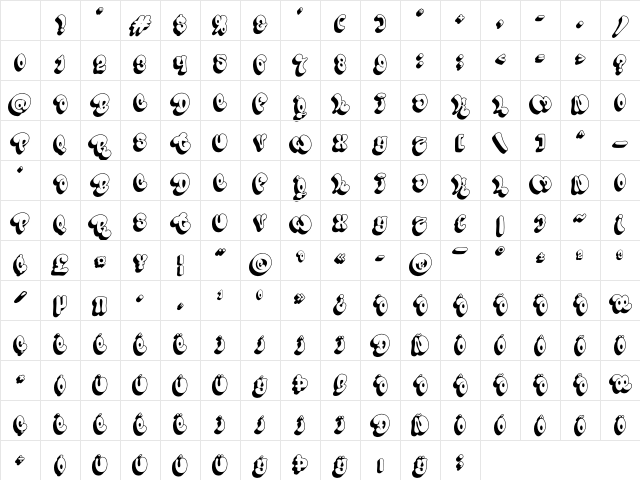
Complete Bomber Marker- Shadow Regular glyph index. Displaying only characters natively supported by Bomber Marker- Shadow Regular font.
Bomber Marker- Shadow is built around its visual character rather than neutral utility - its distinctive forms are designed to make an impression at display sizes.
Font Pairing: Pair with a clean neutral sans-serif for body copy to let Bomber Marker- Shadow's character lead without overwhelming the composition.
Pro Tip: Use Bomber Marker- Shadow exclusively at display sizes - it was designed to be seen, not read at length. Let a neutral companion handle body copy.